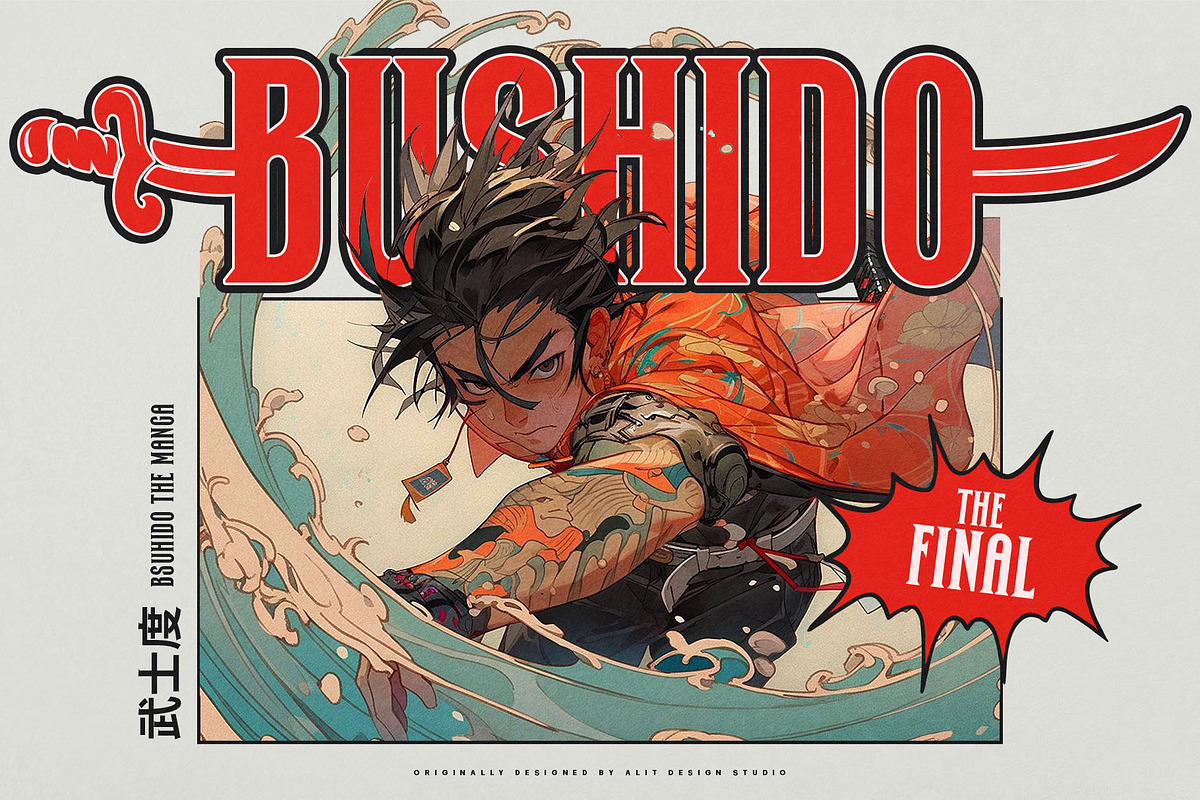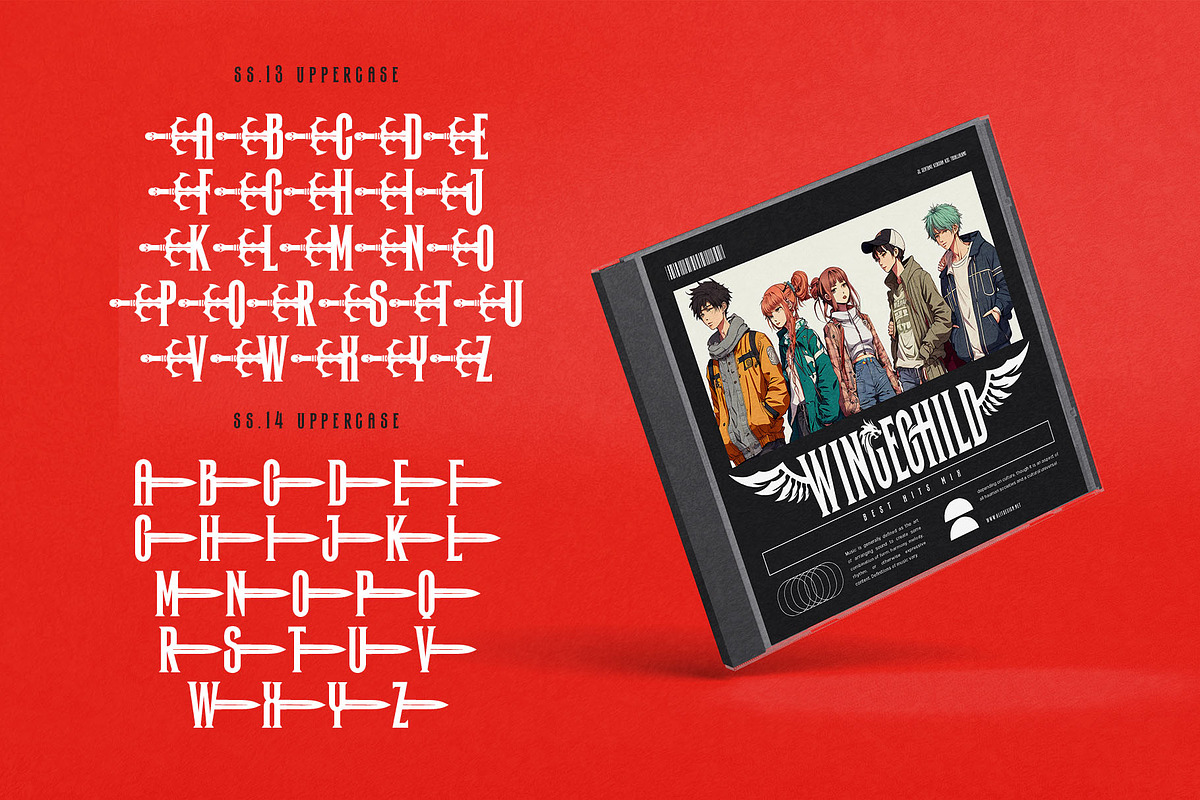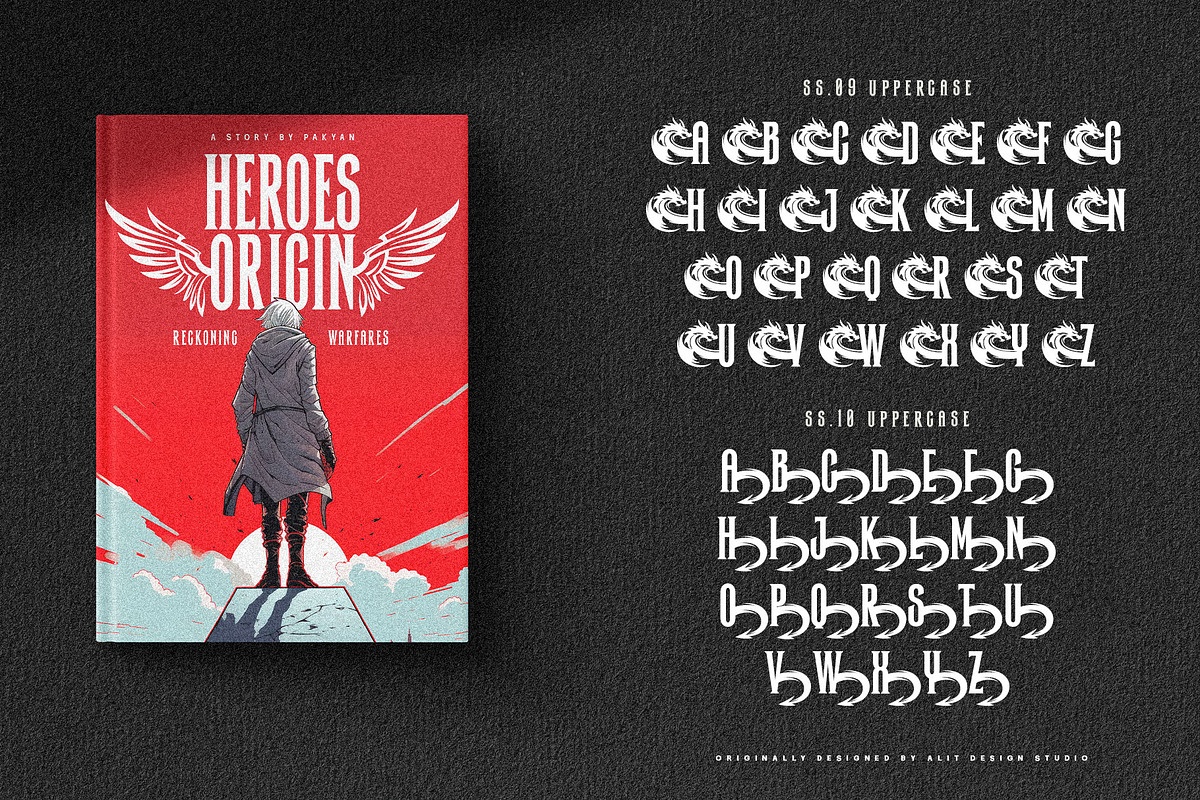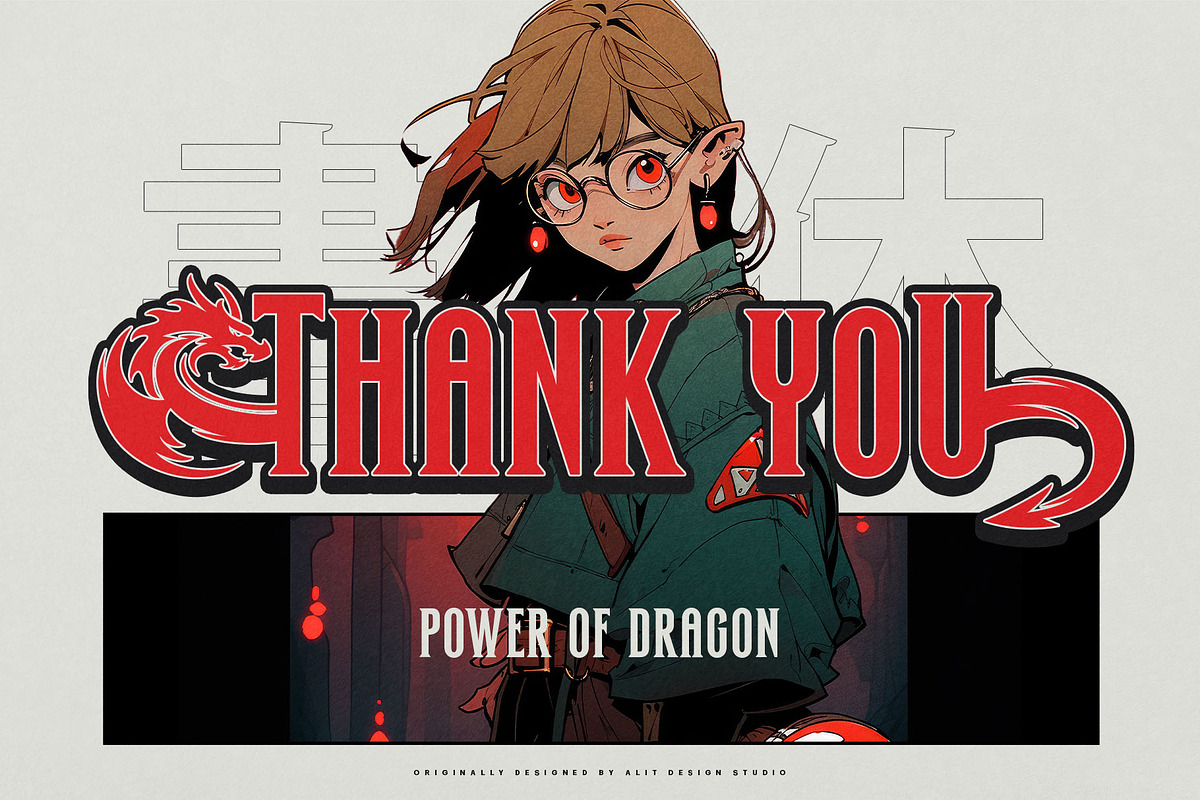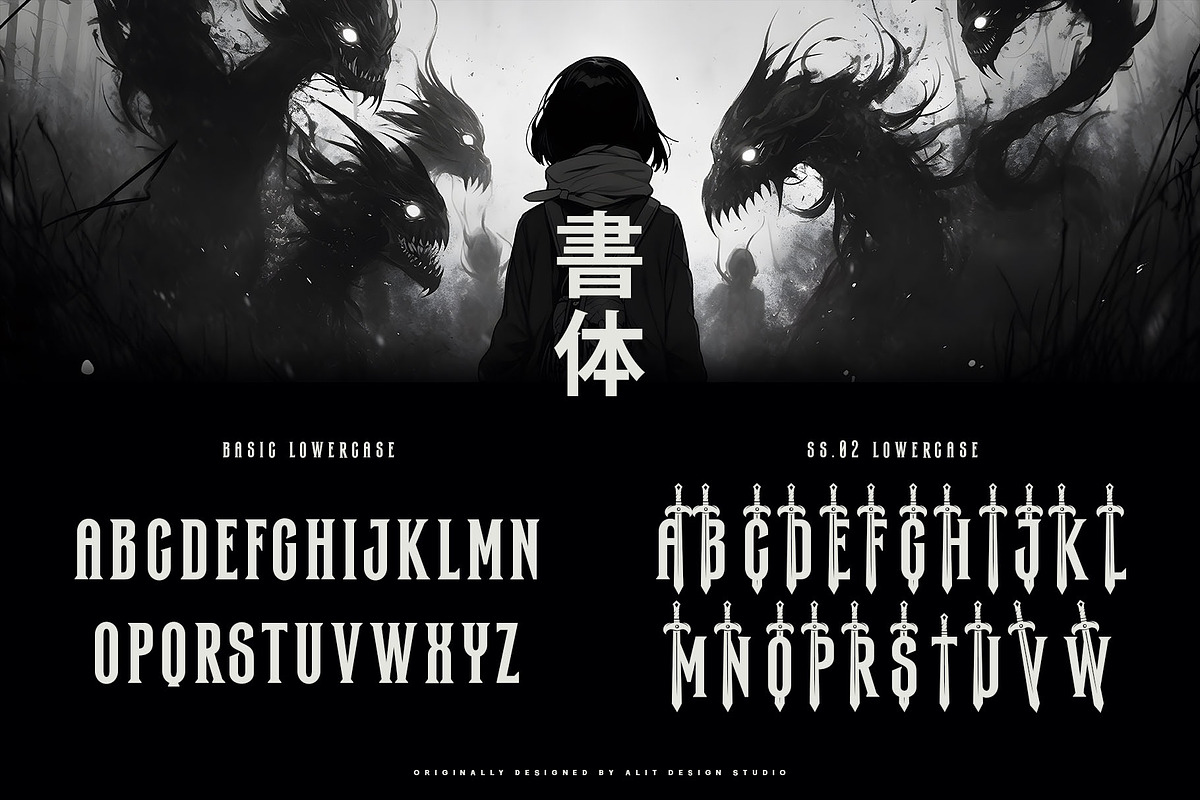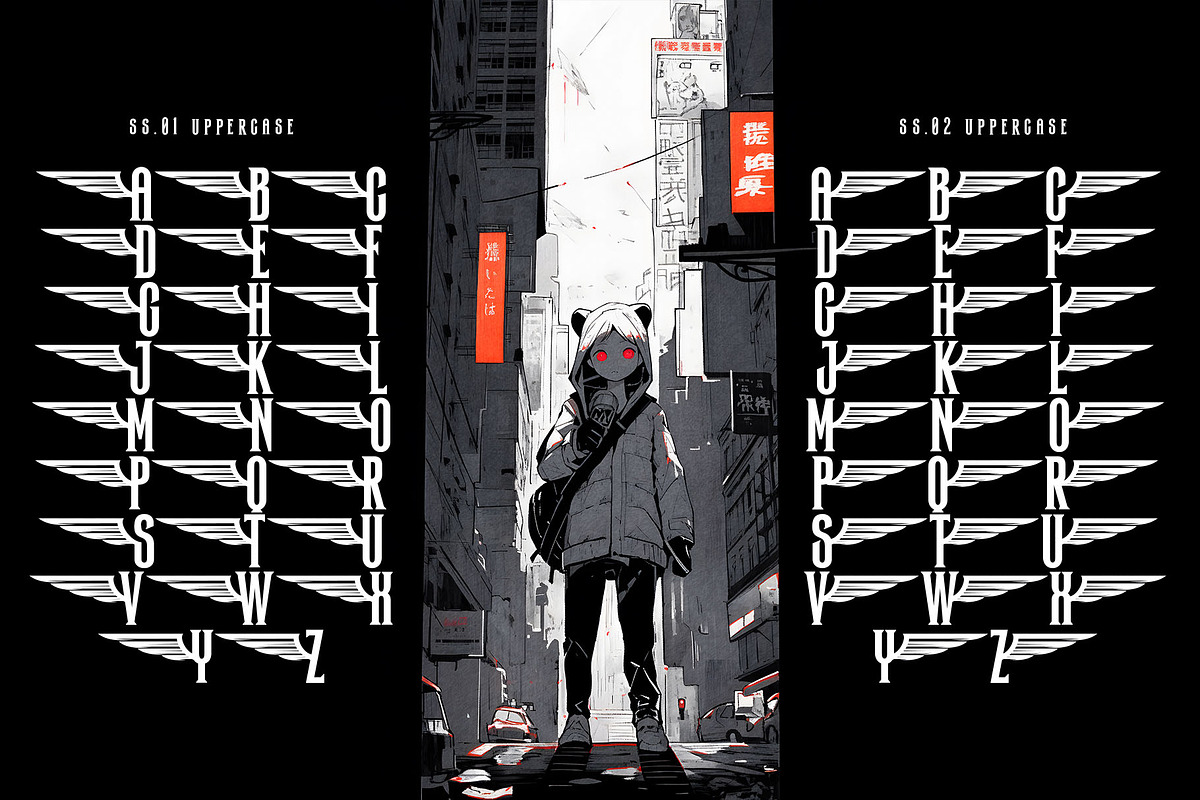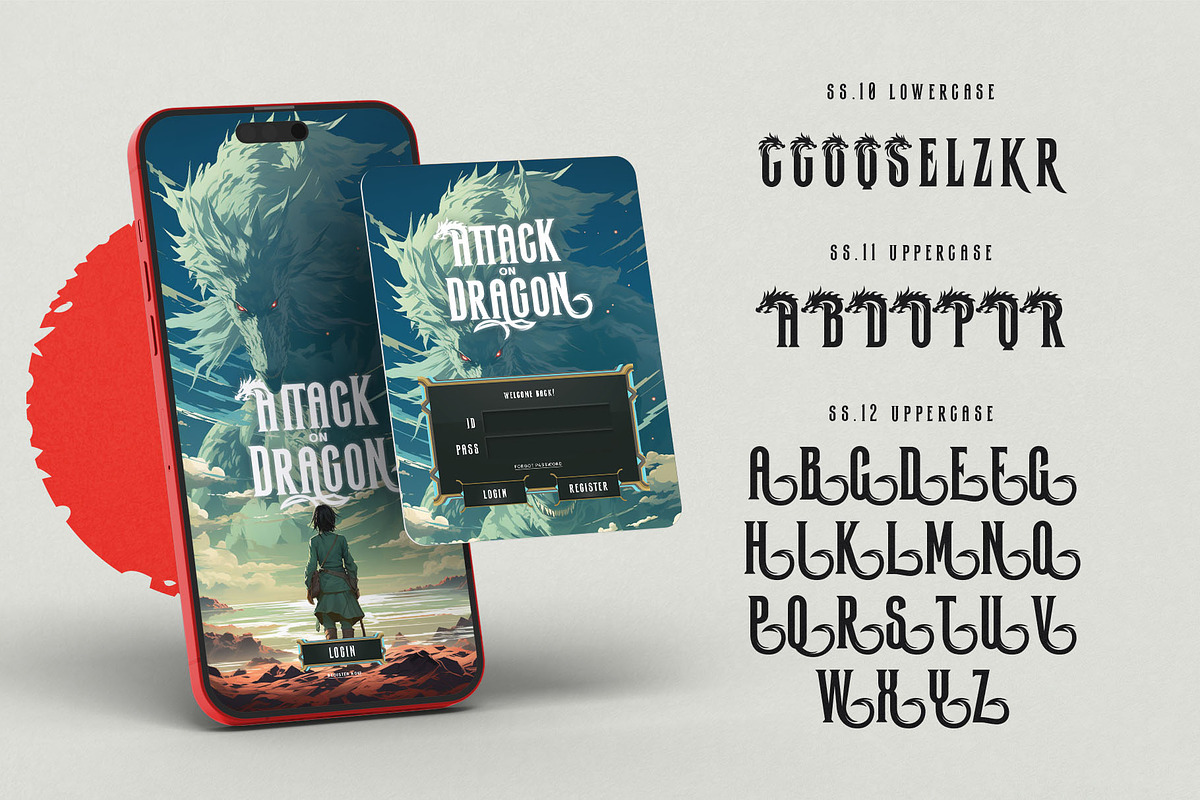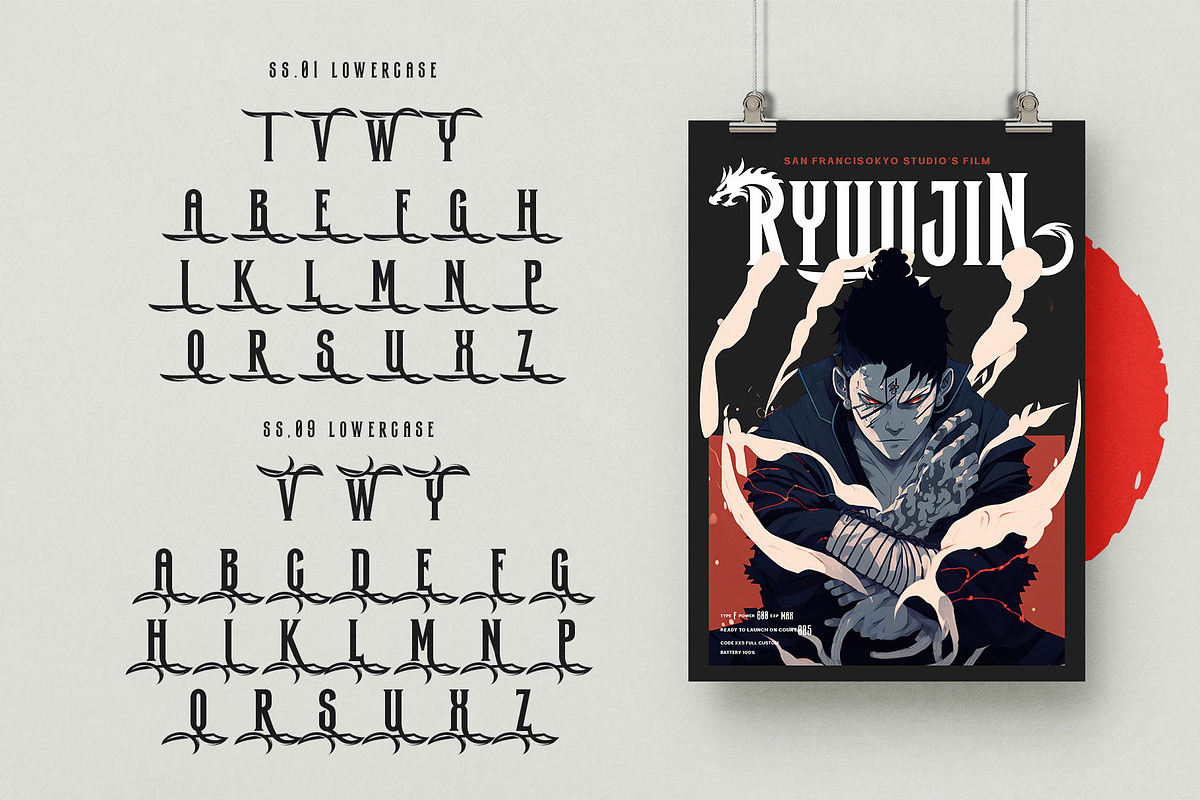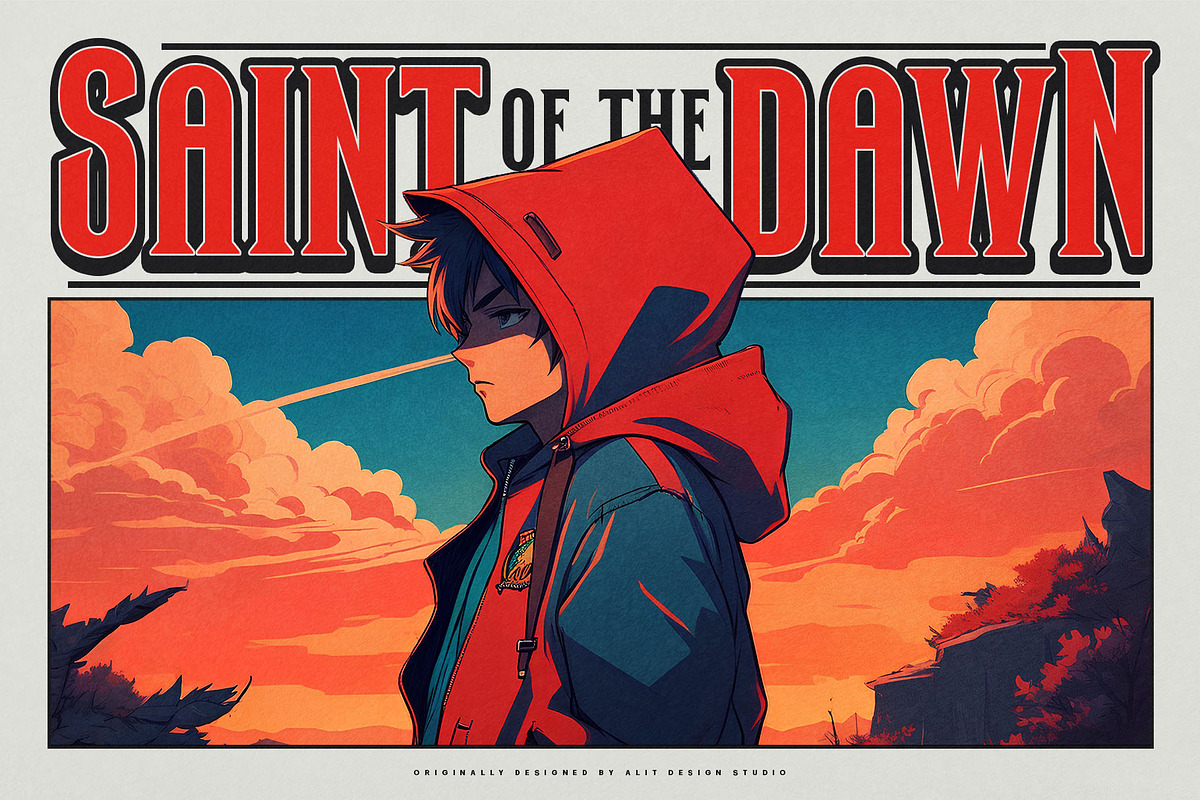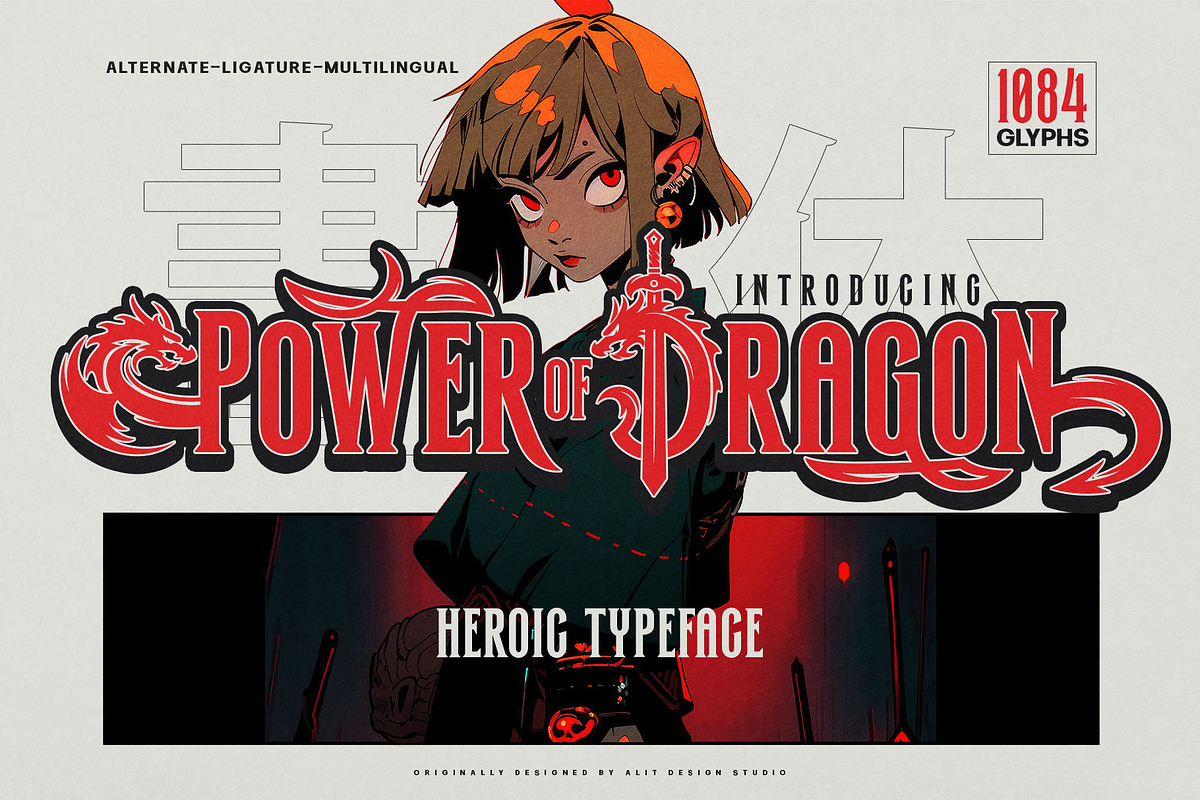
Power of Dragon Typeface
Introducing "Power of Dragon" Typeface - Unleash Your Inner Hero!
Unleash the extraordinary with our "Power of Dragon" Typeface, a bold and dynamic serif display font designed for those who aspire to be legendary. Embrace the spirit of a super hero anime with this powerful typeface that combines strength, elegance, and a touch of fantasy.
🐉 Dragons and Wings Illustrations: Feel the might of dragons and soar high with the included intricate illustrations of majestic wings. Each character is crafted to convey the essence of mythical power, bringing an extra layer of magic to your designs.
⚔️ Swords and Pirates: Channel the bravery of a swashbuckling hero with sword illustrations that add a dash of adventure to your projects. The pirate theme brings a sense of daring and excitement, making "Power of Dragon" Typeface perfect for projects that require a touch of maritime courage.
🌟 Super Hero Anime Theme: The "Power of Dragon" Typeface is inspired by the dynamic world of super hero anime, ensuring that your designs exude strength and heroism. Whether you're working on comic books, posters, or branding projects, this typeface brings an electrifying energy to your creations.
🔠 1084 Characters: With a robust set of 1084 characters, "Power of Dragon" Typeface gives you the flexibility to express your creativity without limitations. From uppercase and lowercase letters to numerals and punctuation, every character is meticulously crafted for maximum impact.
🌐 PUA Unicode and Multilingual Support: Seamlessly incorporate "Power of Dragon" into your designs with PUA Unicode support. Additionally, enjoy the versatility of multilingual support, making it easy to communicate your message across various languages and cultures.